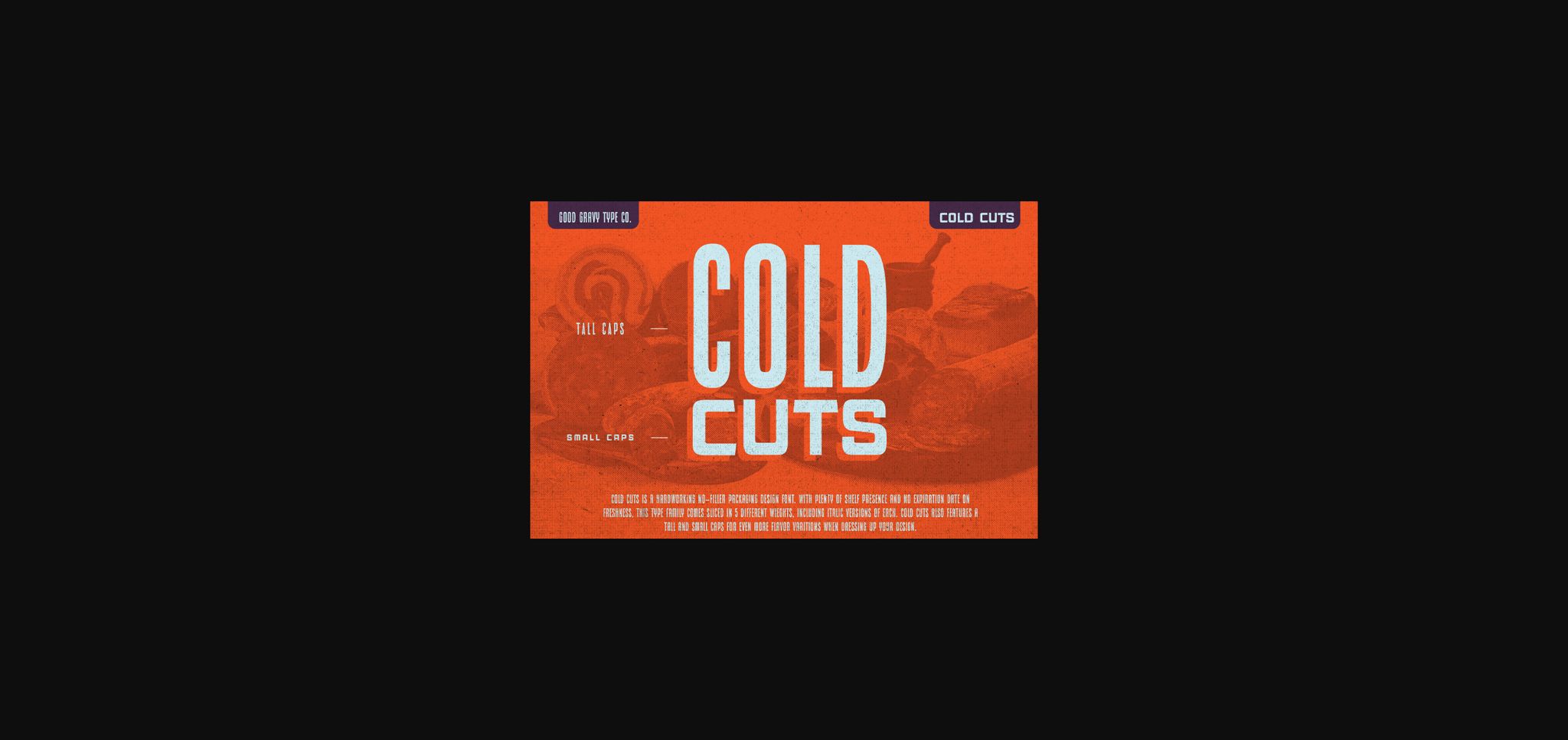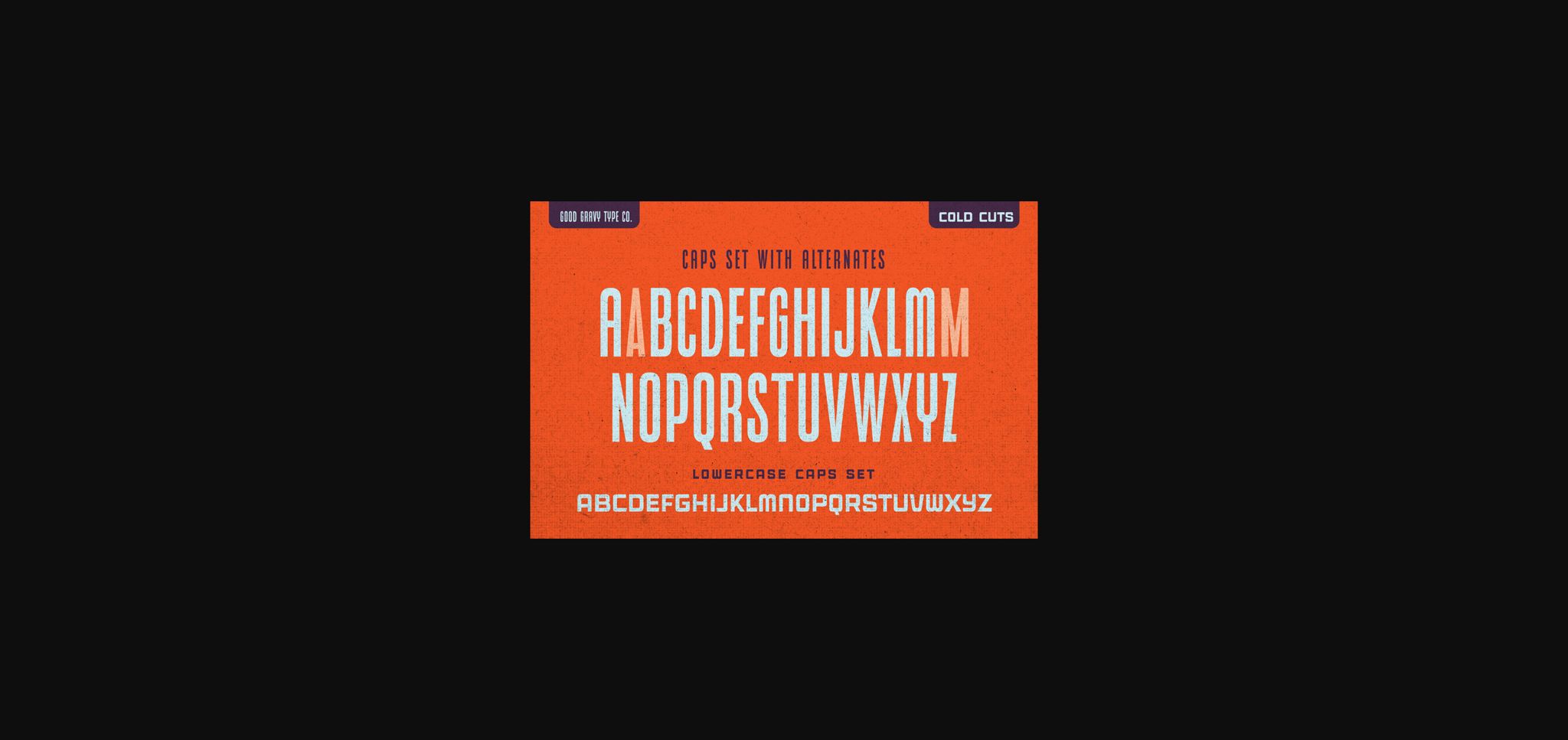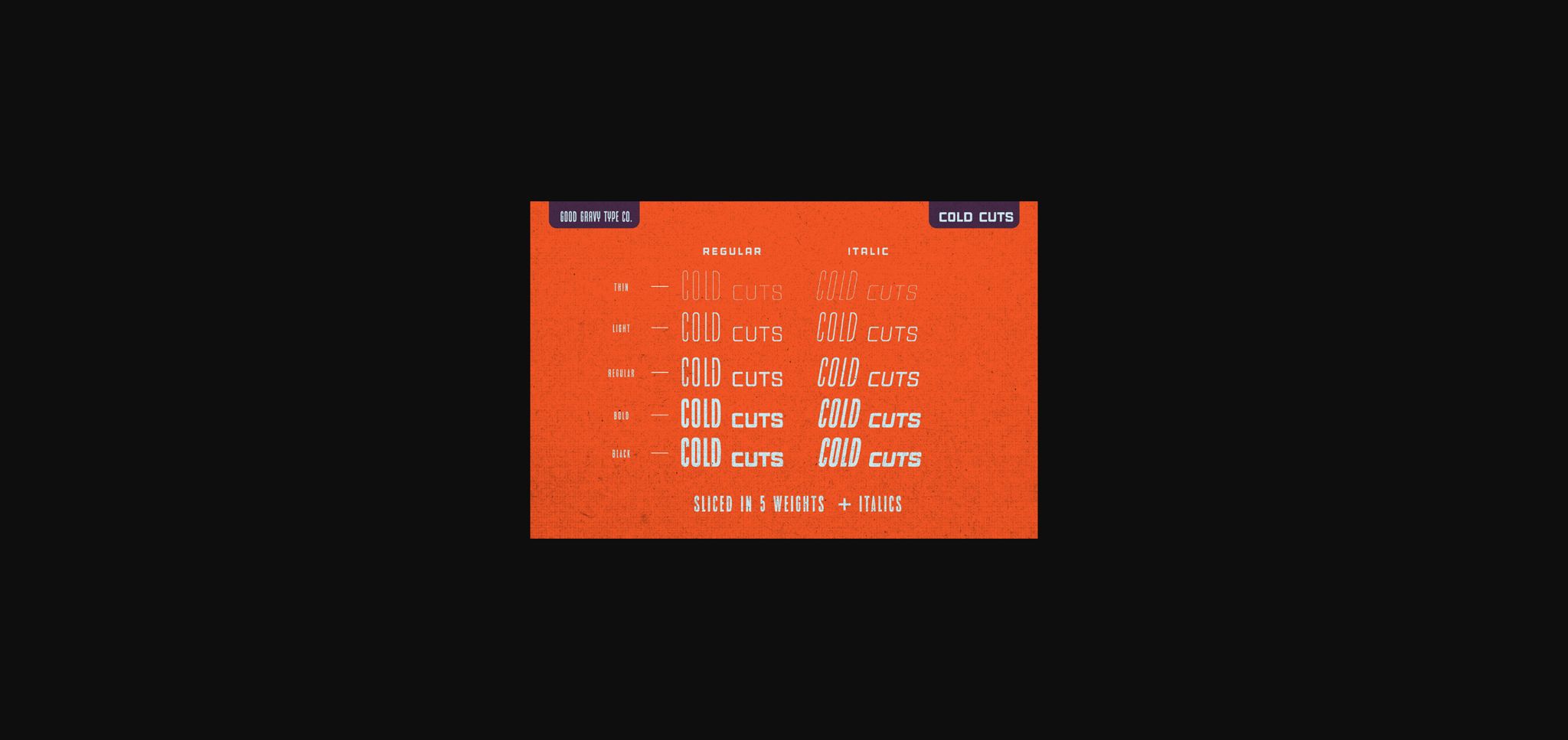
Cold Cuts Font
About Cold Cuts Font
Cold Cuts is a modern and strong sans serif font. It has 10 different styles that will take your projects to the next level.